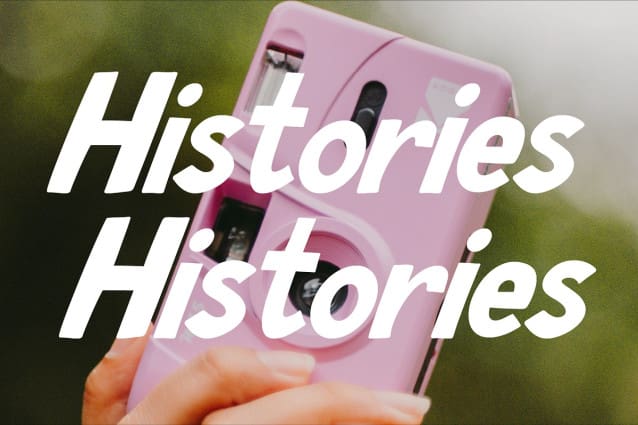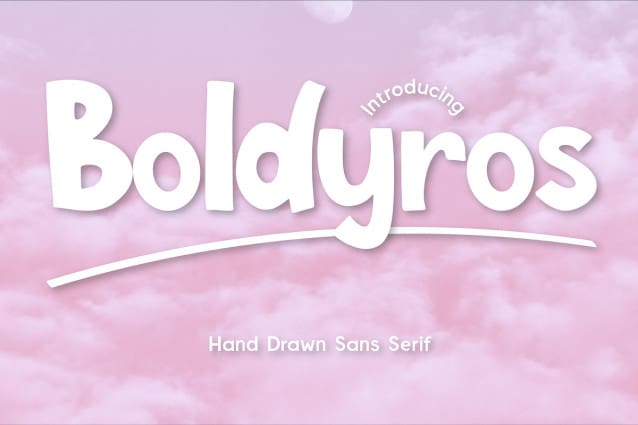
CF Boldyros Font
CF Boldyros Font – A Fun & Playful Hand-Drawn Sans Serif Bring your designs to life with CF Boldyros Font , a bold and lively hand-drawn sans serif that radiates energy and friendliness. With its slightly irregular letterforms and natural strokes, this font captures the essence of handcrafted charm while maintaining a strong and confident presence. Whether you’re designing logos, children’s books, packaging, social media graphics, or playful branding, Boldyros delivers a fresh and engaging look. Its rounded edges and quirky shapes create a warm and inviting personality, perfect for brands that want to stand out with a casual, friendly, and approachable style.